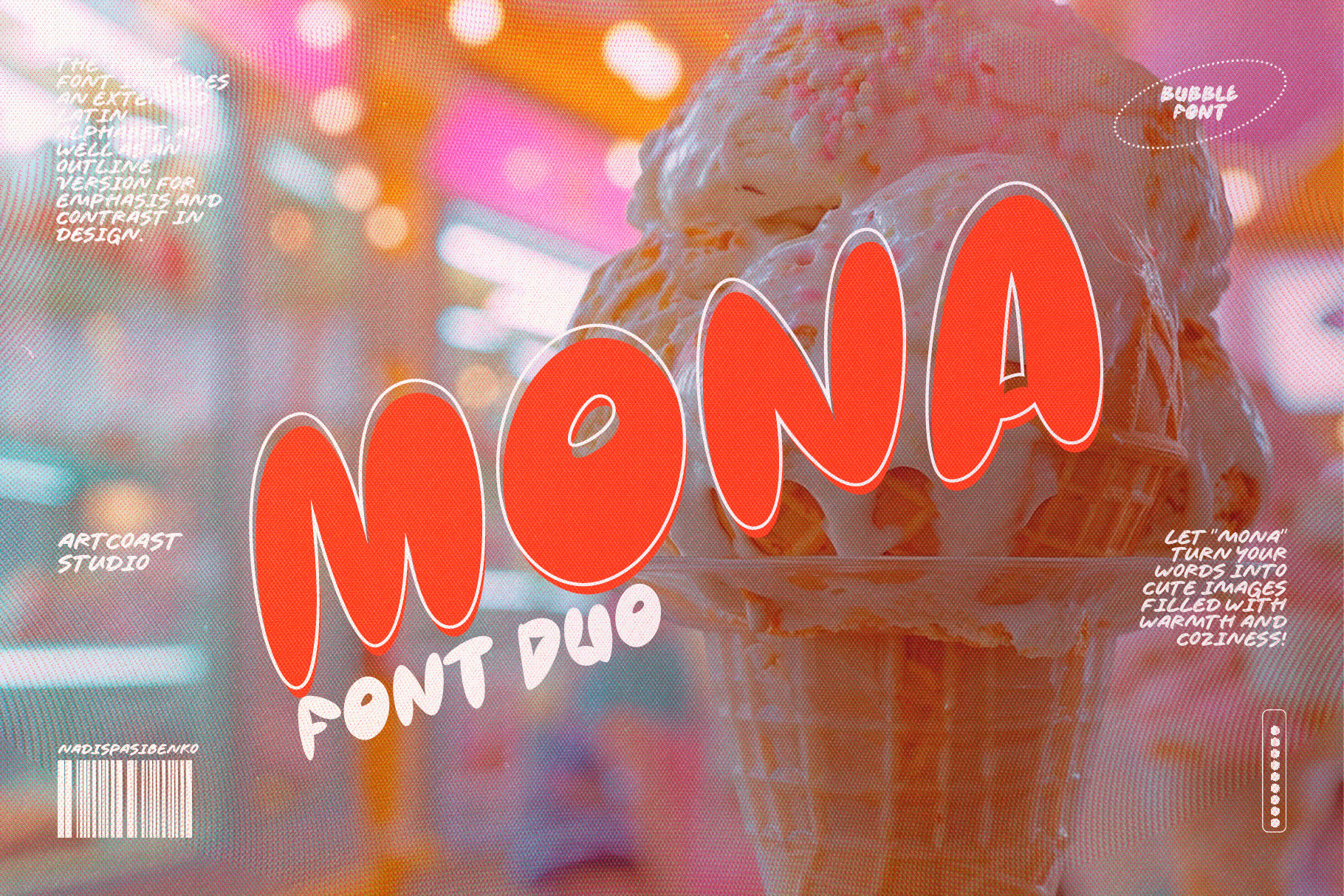
SA Mona Bubble Font
๐ Welcome to the world of SA Mona Bubble Font font! ๐
This font is a delight for the eyes! Its letters are like little chubby balls, soft and cozy, as if they were clouds in the sky. They are light, round, and charming, as if created to make you smile. Each letter is like a small inhabitant of a fairy tale world, inviting you into its magical circle!
In this font, there are no sharp angles or strict lines - only smooth curves and soft shapes. It's perfect for creating friendly and playful designs, adding a dose of fun and tenderness to your projects.
Additionally, SA Mona Bubble Font comes with an outline variation, allowing for even more creative and interesting designs. This font duo is your ticket to crafting cute images filled with warmth and coziness! ๐โจ